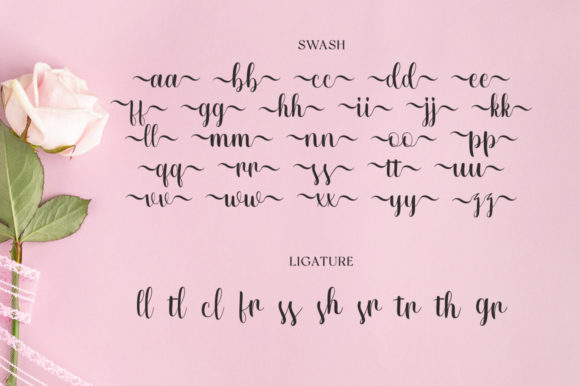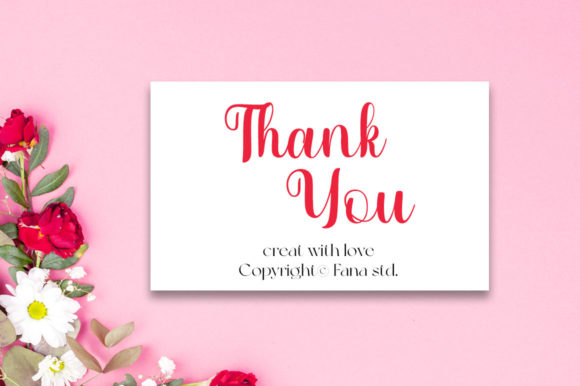
About Vonetica Font
Vonetica is a stylish and incredibly elegant script font. This font is PUA encoded which means you can access all of the glyphs and swashes with ease!